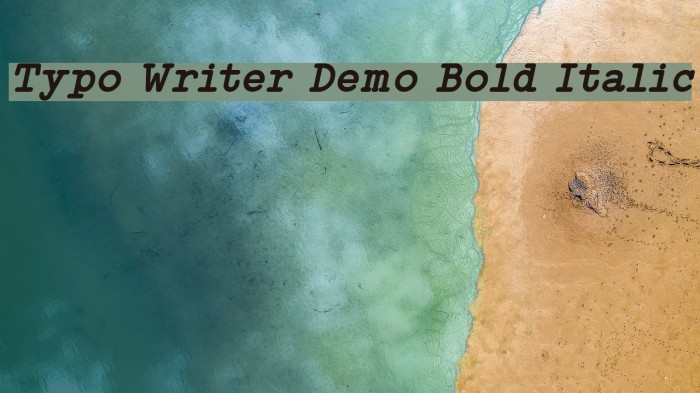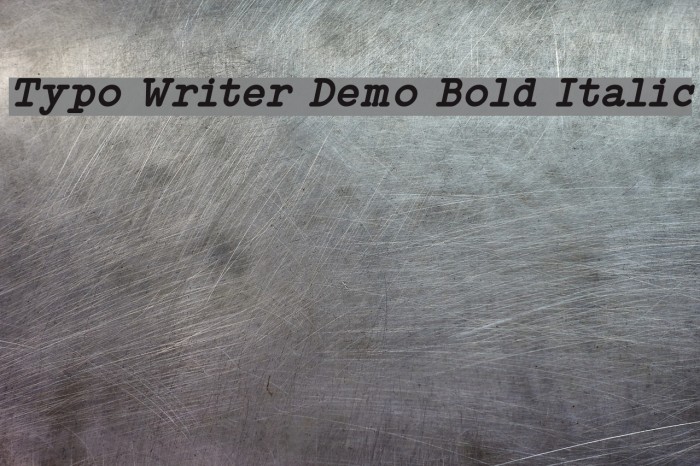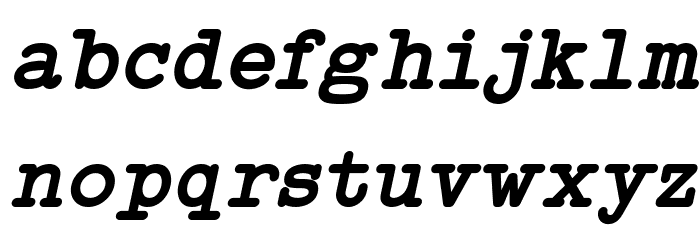
Typo Writer Demo Bold Italic Font
Typo Writer Demo Bold Italic Description
This font features a bold and italicized style, reminiscent of classic typewriter fonts but with a modern twist. The characters are slightly slanted, giving them a dynamic and energetic appearance. The bold weight ensures strong visibility, making it suitable for headlines and titles. The rounded edges of the letters add a touch of softness, balancing the boldness with approachability. The numbers and special characters maintain the same stylistic elements, ensuring consistency across all glyphs. The spacing between characters is normal, providing good readability without feeling cramped.
A bold, italicized typewriter-style font with rounded edges and dynamic slant from Uncategorized fonts.
- Proposed Projects: Ideal for retro-themed designs, typewriter-inspired projects, posters, and branding materials that require a vintage yet modern look.
- Overall Style: Vintage